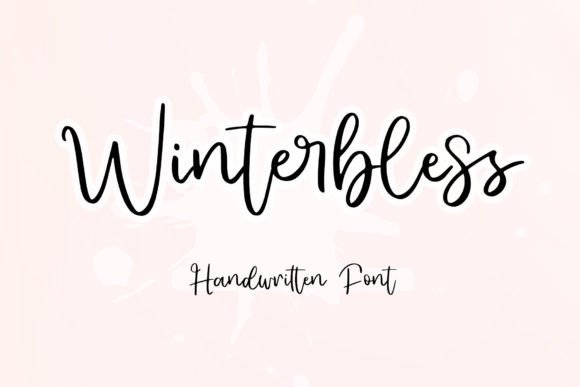
Journey into the world of elegance and sophistication with Winterbless Font, a captivating script font that will cast a spell on your designs. Crafted with meticulous attention to detail by Letterafa Studio, this enchanting font exudes a timeless charm that will leave a lasting impression on your audience.
With its sweeping curves, delicate swashes, and graceful flourishes, Winterbless Font is the epitome of romanticism. Its versatility knows no bounds, lending itself effortlessly to a myriad of creative endeavors, from heartfelt greeting cards to captivating headlines. Whether you're designing wedding invitations, crafting logos, or creating marketing materials, Winterbless Font will elevate your projects to new heights of beauty and sophistication.
Immerse yourself in the allure of Winterbless Font and let your creativity flourish. Its enchanting characters will dance across your designs, adding a touch of magic and whimsy to every word. Your audience will be captivated by its timeless elegance, drawn in by its undeniable charm.